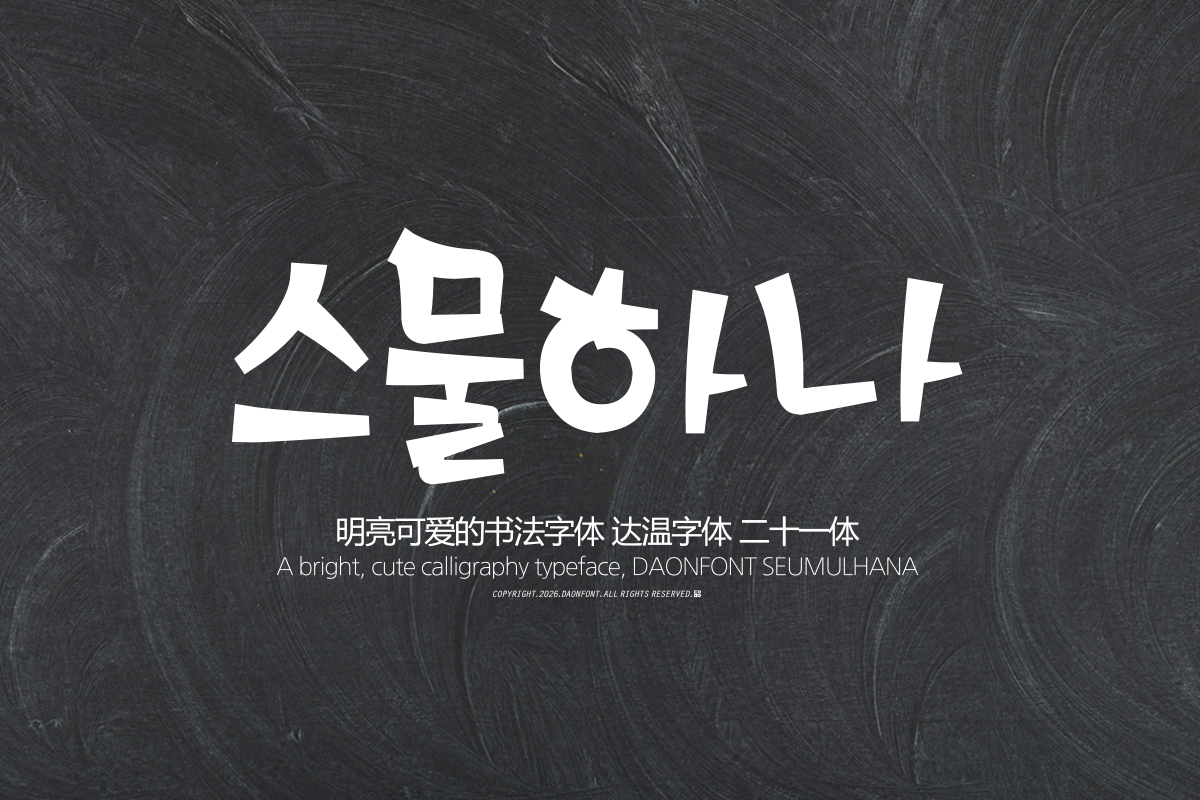
DAON SEUMULHANA(M)
DaonFont 'SEUMULHANA' is a design typeface created for copy design purposes, allowing you to create bright and cute Hangul designs. It consists of 2,350 Hangul characters, as well as English letters, numbers, and special characters. You can work on various calligraphy designs by adjusting the font's scale, line spacing, and letter spacing.